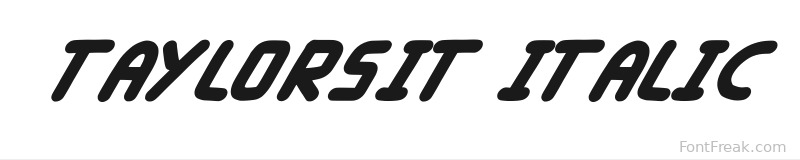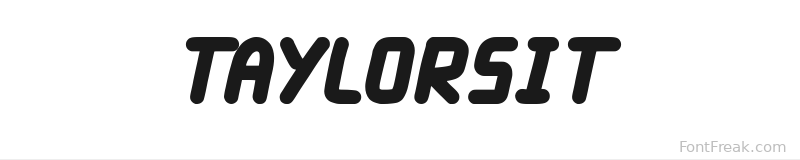
Taylorsit Oblique
Taylorsit Italic
Taylorsit
Taylorsit Oblique is a distinctive display font designed by Kong Font, characterized by its unique oblique style that sets it apart from traditional typefaces. This font falls into the category of decorative fonts, making it an excellent choice for projects that require an eye-catching element. The strokes exhibit a bold, heavy weight, giving the typeface a commanding presence, while the slight slant adds an energetic flair. The spacing is well-balanced, ensuring readability without sacrificing its artistic appeal.
The Taylorsit Oblique font is particularly well-suited for a variety of creative applications. It shines in settings such as wedding invitations, where its stylish flair can evoke a sense of celebration. Additionally, it works wonderfully for movie posters, adding a modern edge that draws viewers in. Restaurant menus can also benefit from the font's playful yet sophisticated aesthetic, helping to convey the ambiance of the dining experience. Furthermore, it can be an excellent choice for promotional materials aimed at young, trendy audiences, such as flyers or social media graphics.
What truly sets the Taylorsit Oblique font apart is its ability to blend boldness with a touch of whimsy. This makes it an ideal choice for anyone looking to make a statement while still maintaining clarity and readability. For those interested in experimenting with this unique typeface, a Taylorsit Oblique font free download is readily available, allowing for immediate use in your next design project.